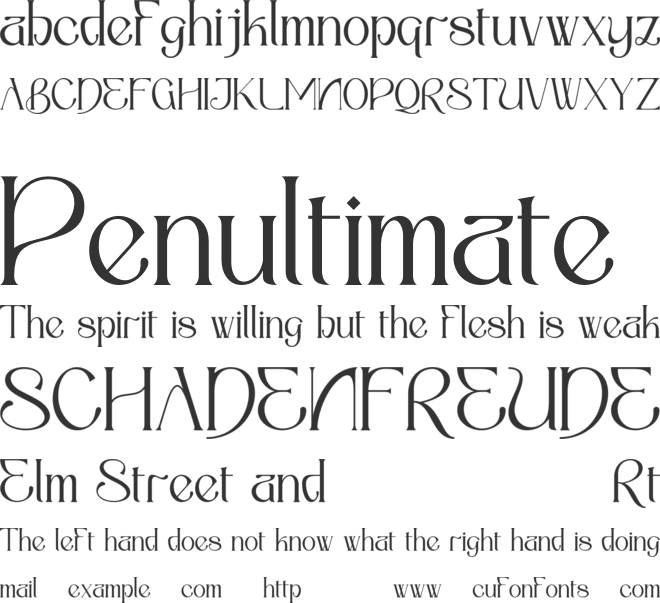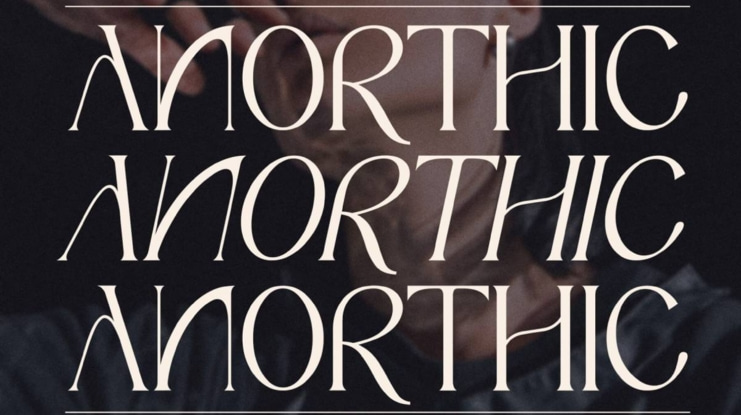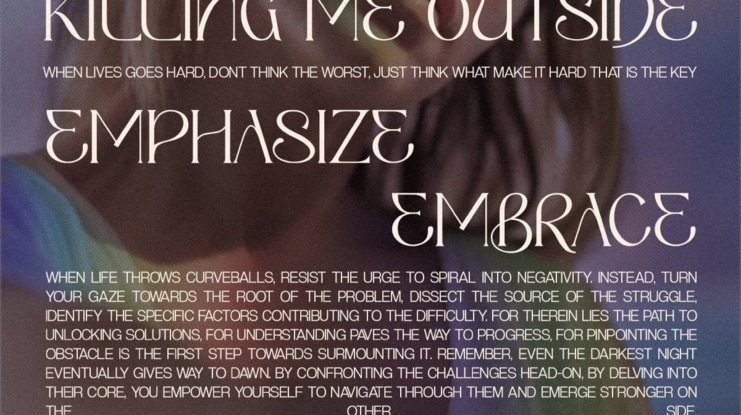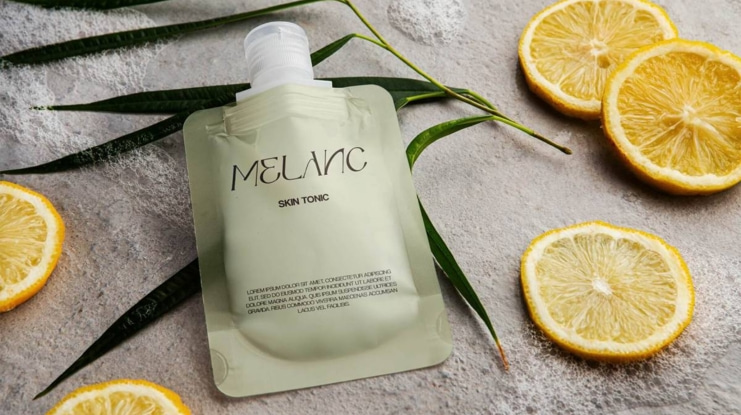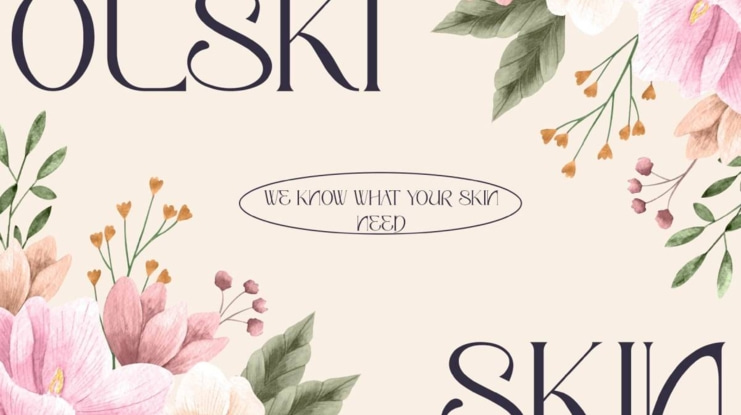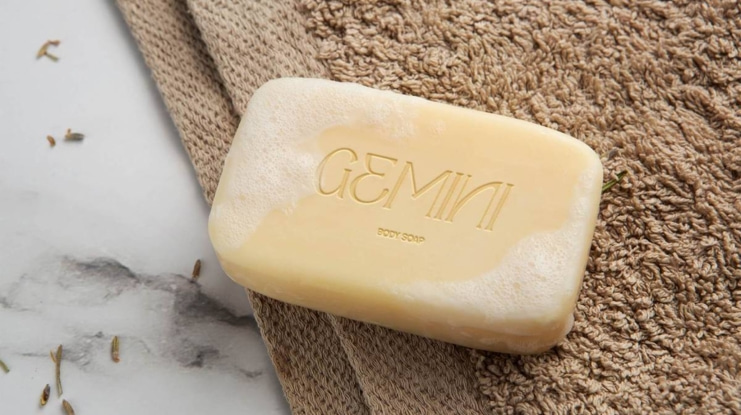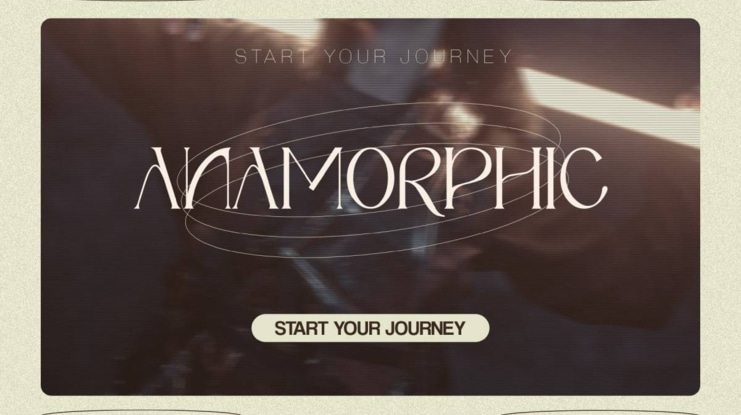
Anorthic Font is a timeless serif font that combines modern elegance and luxury aesthetics. Its refined letterforms and stylish details make it a perfect branding font, logo font, and cosmetic font for brands that value sophistication and beauty. Designed to stand out, this aesthetic font brings a touch of class to any design project.
Ideal for headline fonts, heading fonts, magazines, packaging, and digital campaigns, Anorthic Font enhances every visual identity with balance and grace. Whether you’re designing for fashion, lifestyle, or cosmetics, this luxury font offers the perfect harmony of modern charm and timeless style.